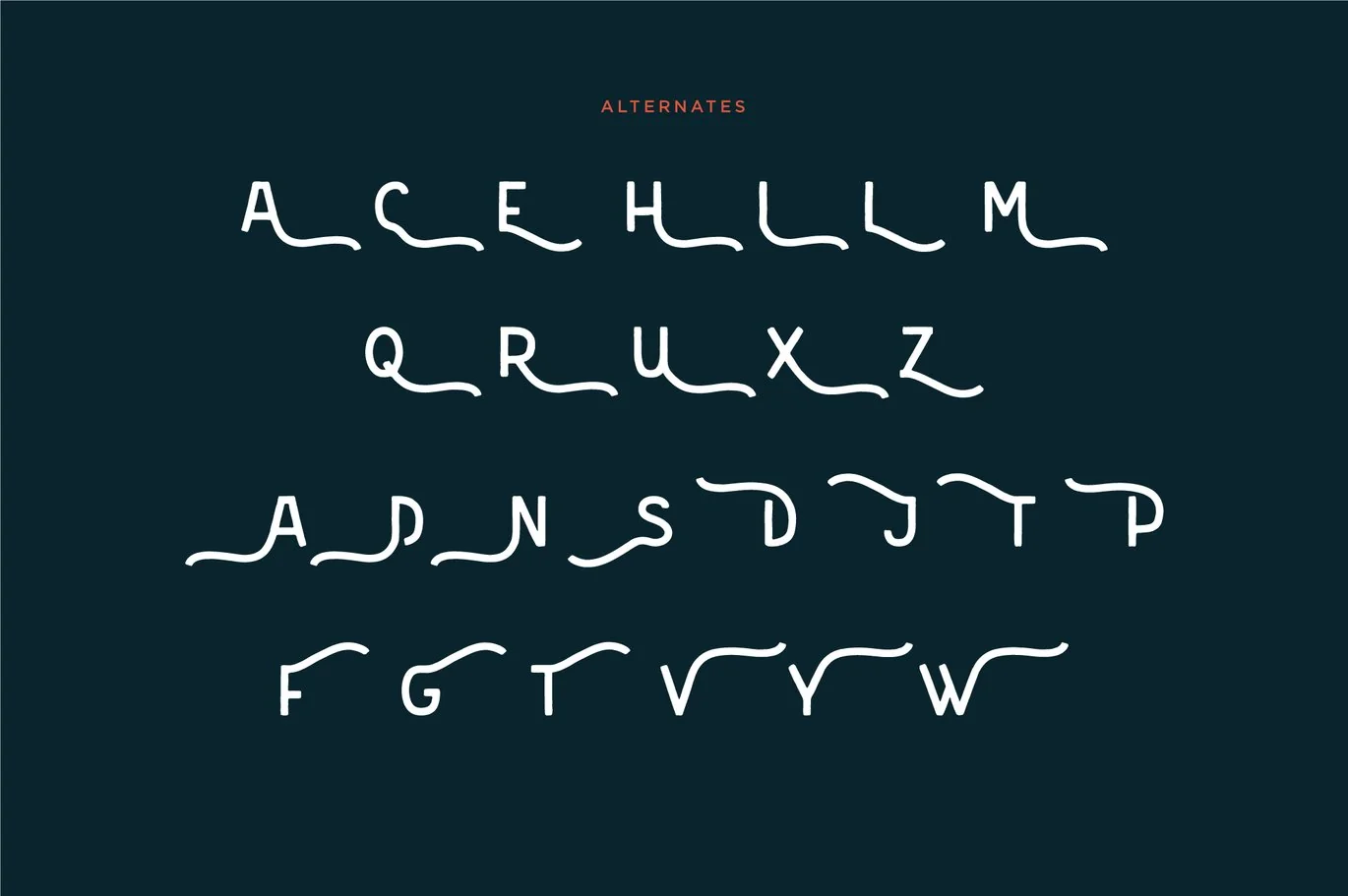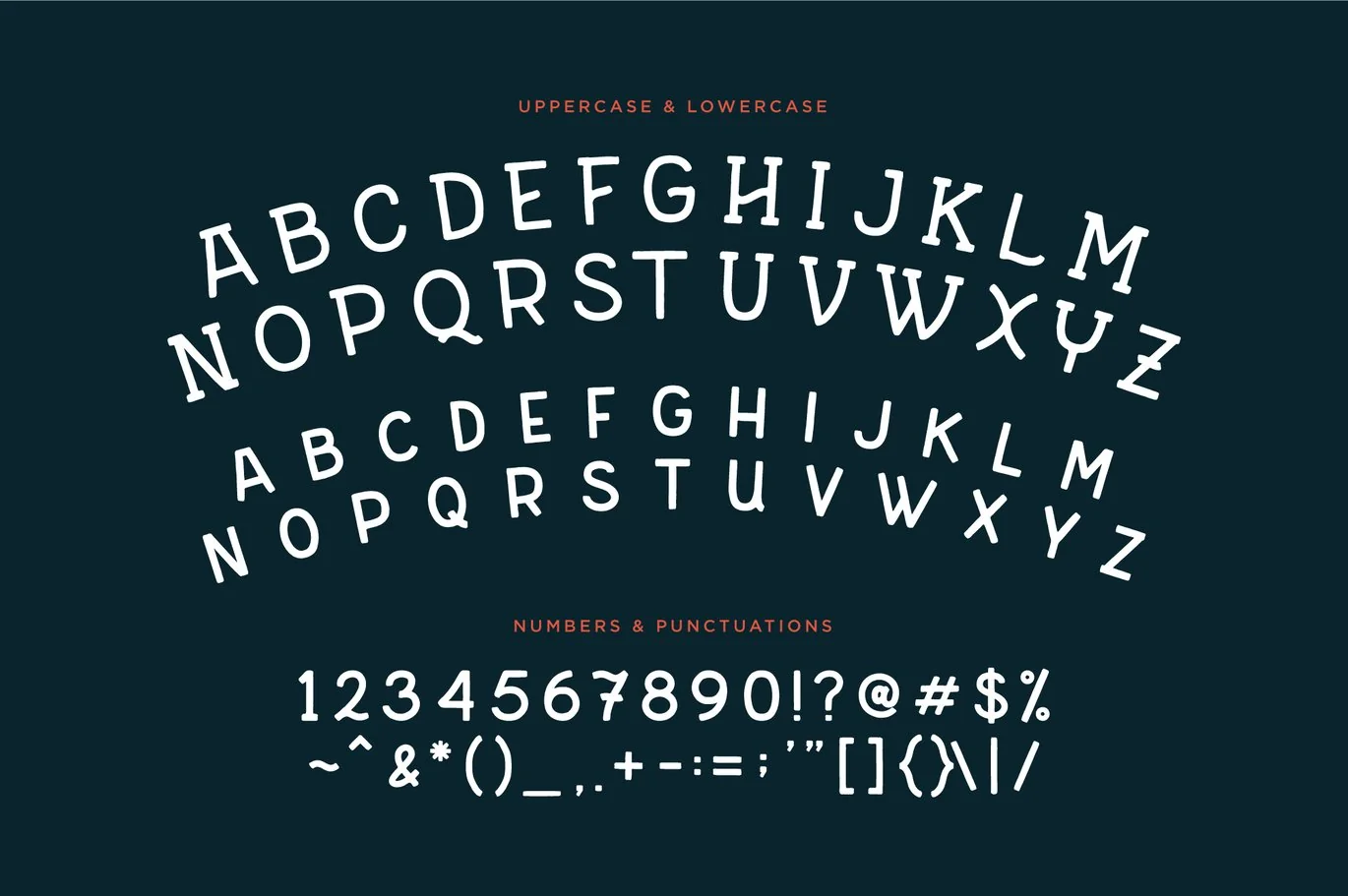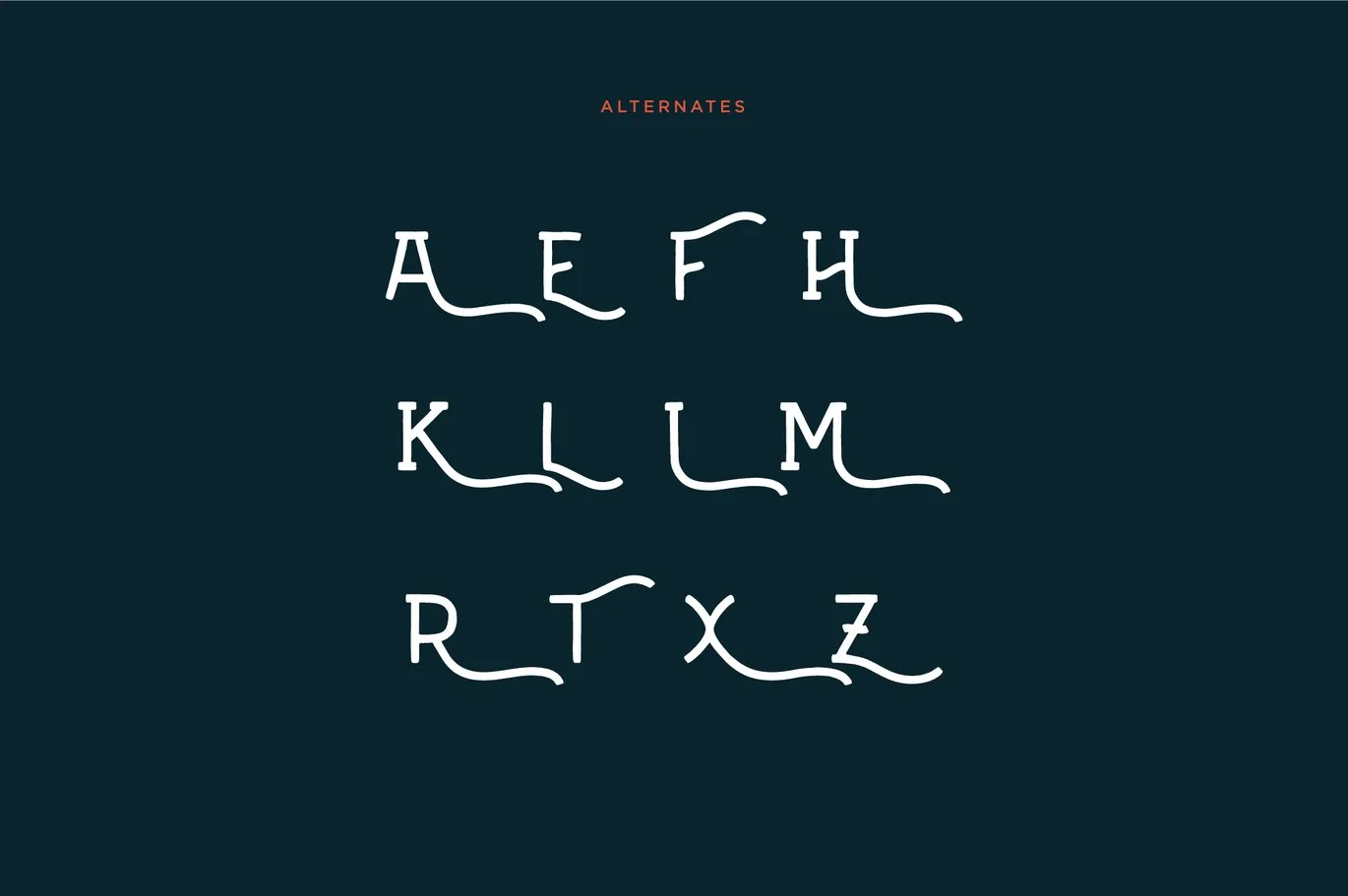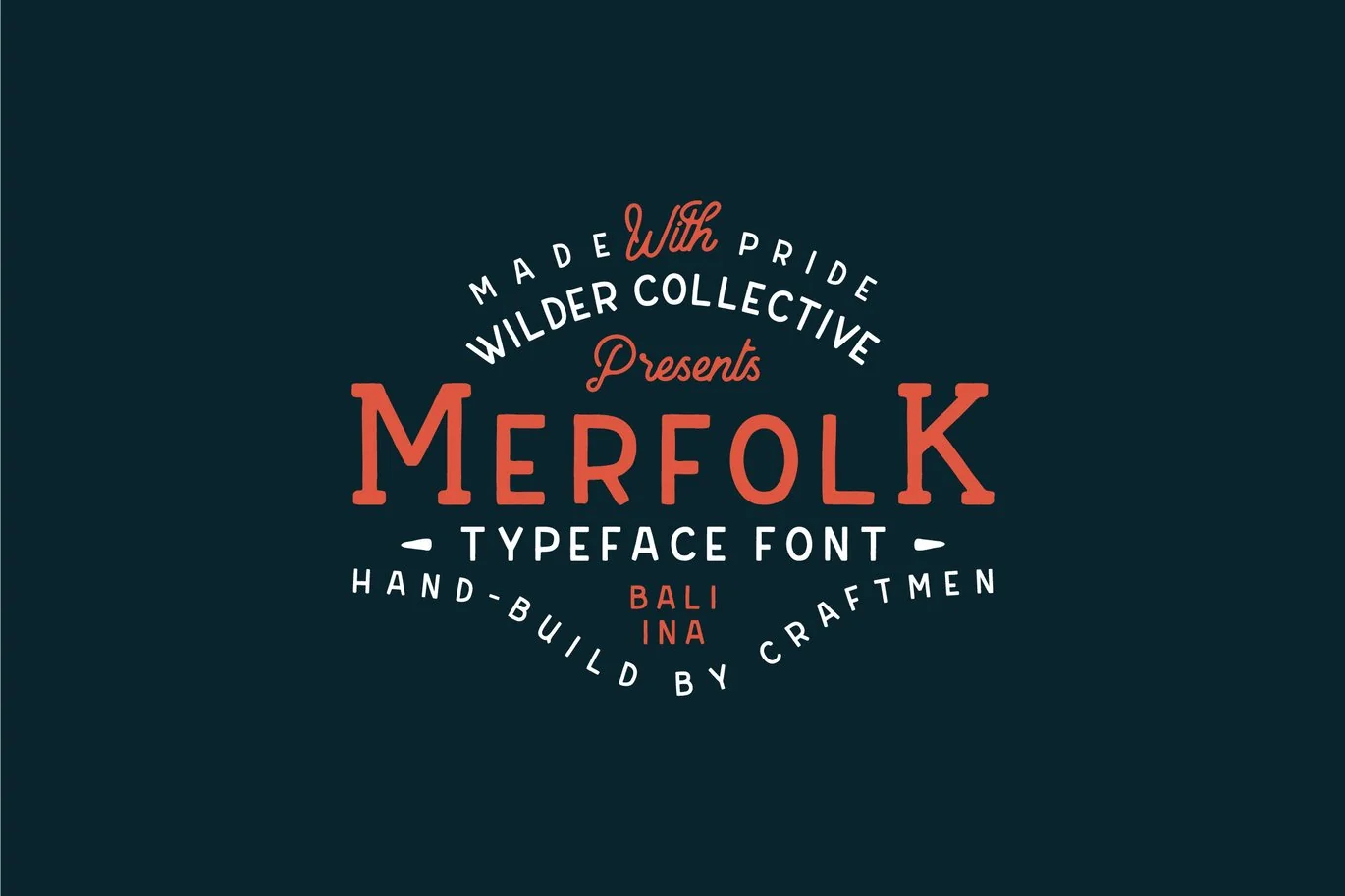
Merfolk Typeface – Retro Font
Merfolk Typeface Font
Tacikworks presents the new typeface font hand build by craftsman. These handmade vintage font will be good to use in your design. The font perfect for create brand logo, badges, clothing design, and much more